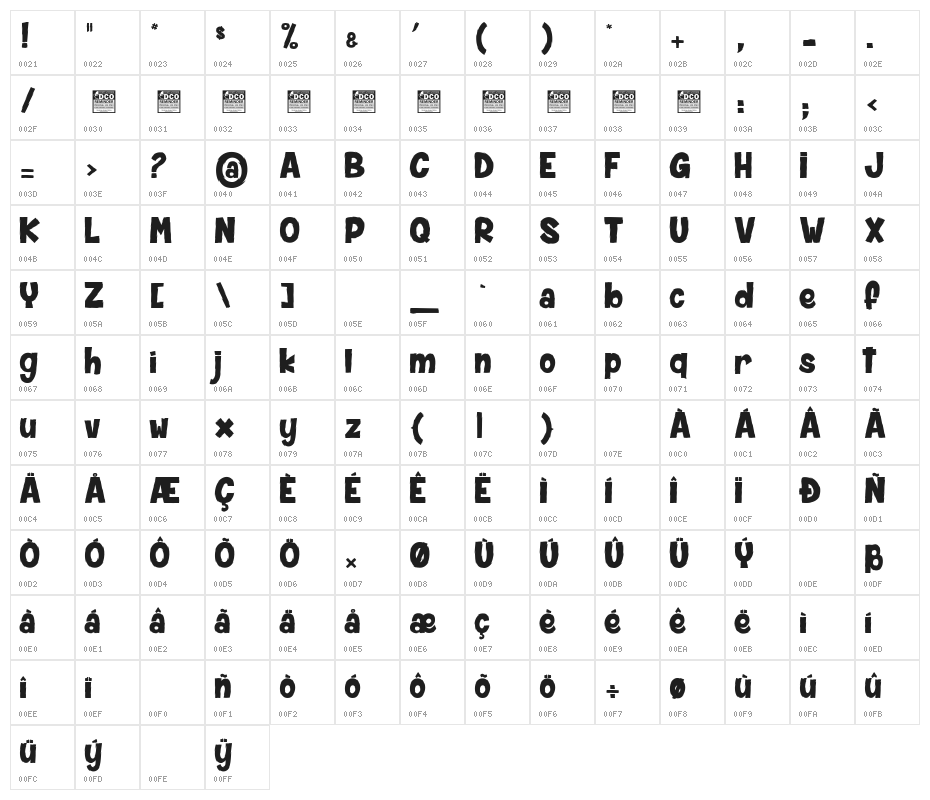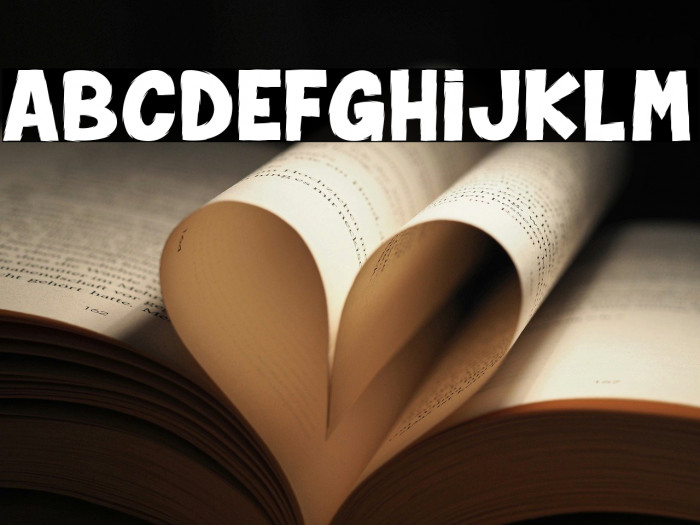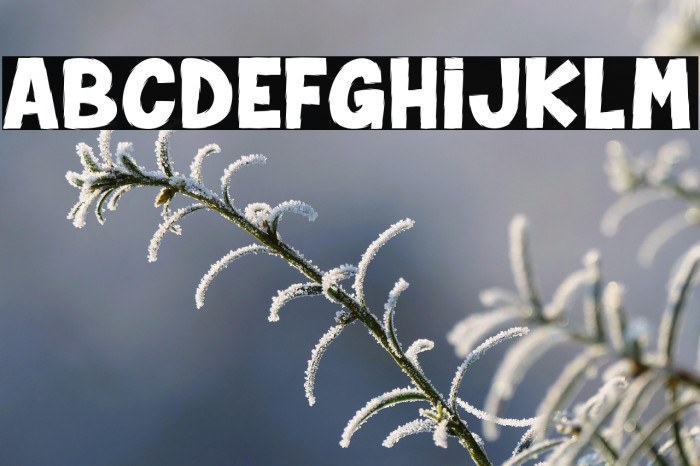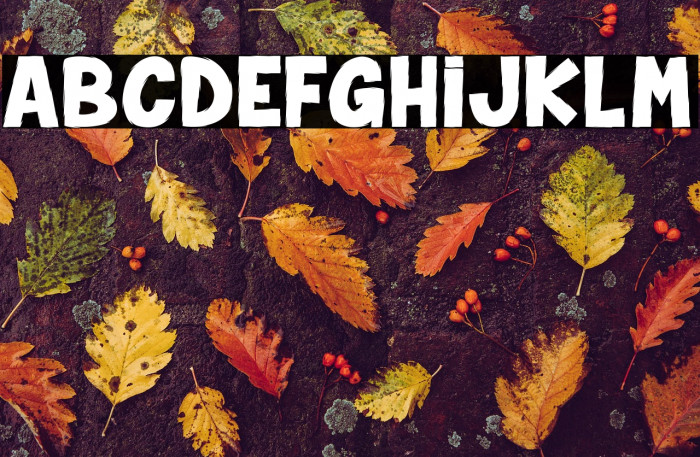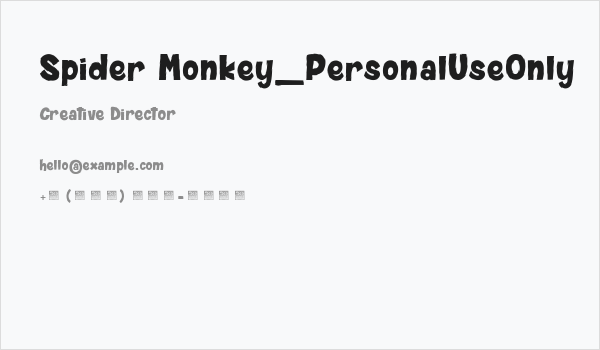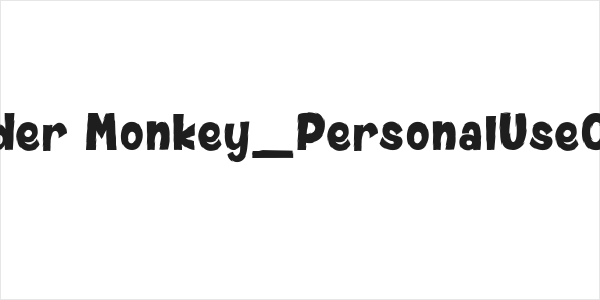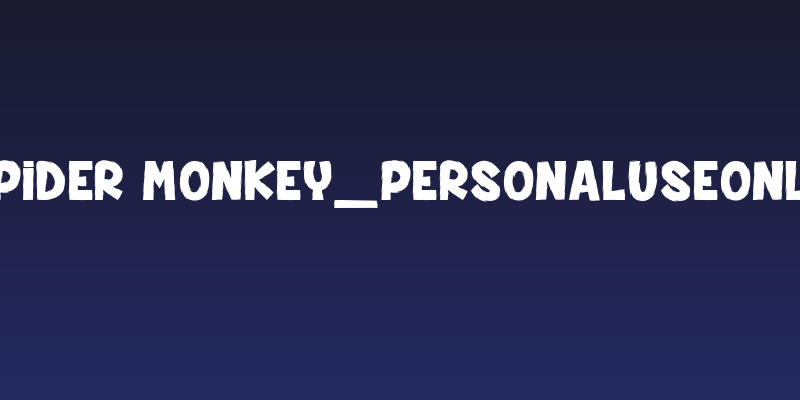
Spider Monkey_PersonalUseOnly Font
Spider Monkey_PersonalUseOnly Description
This font features a bold and playful style with a hand-drawn appearance. The characters are thick and slightly irregular, giving it a casual and energetic feel. The uppercase and lowercase letters maintain a consistent weight, while the numbers and special characters complement the overall design. The font's unique charm makes it stand out, ideal for projects that require a fun and informal touch. Its bold strokes and slightly uneven edges add to its whimsical nature, making it suitable for creative and artistic applications.
| Overall Style | Playful, Hand-drawn |
| Use Case | Headlines, Posters, Branding |
| Proposed Projects | Great for children's books, posters, comic strips, and playful branding. |